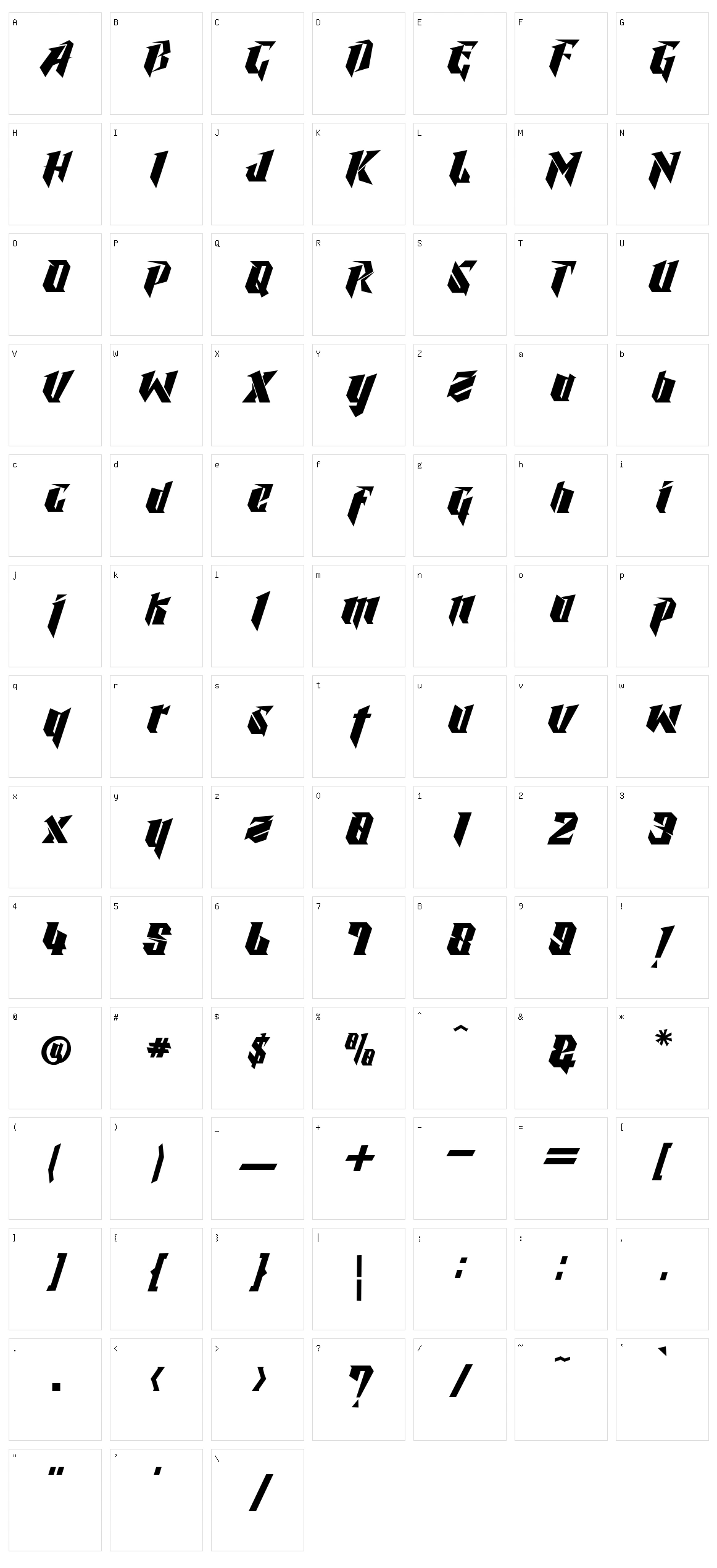
Road Racer
Designed by: Creativework69 Studio
Road Racer is an esport style font that has a sporty character, very suitable for automotive design projects, sports and all products with a dynamic character.